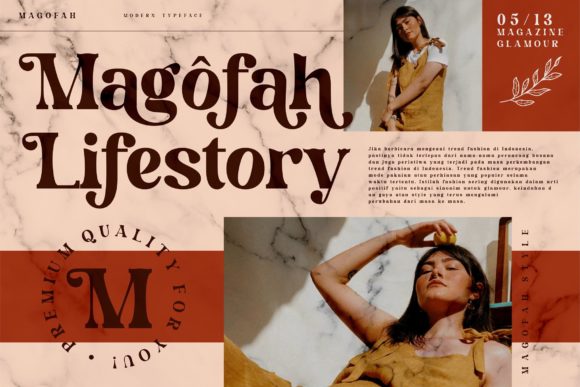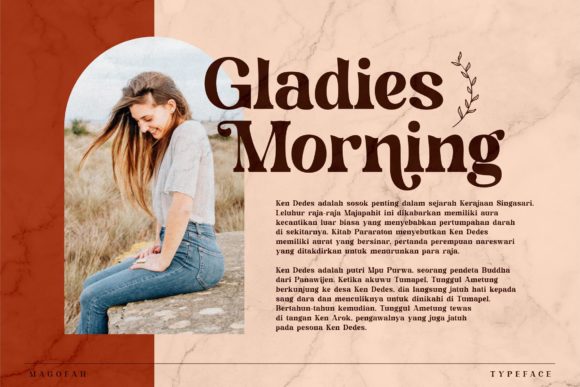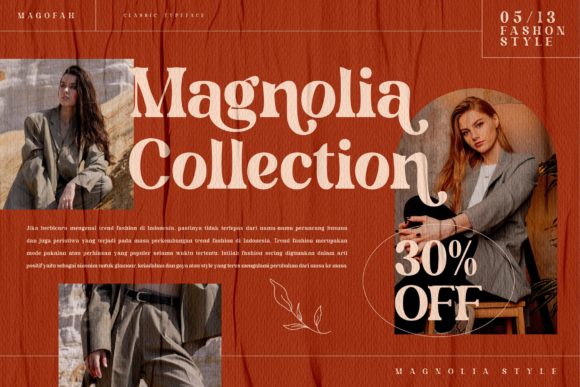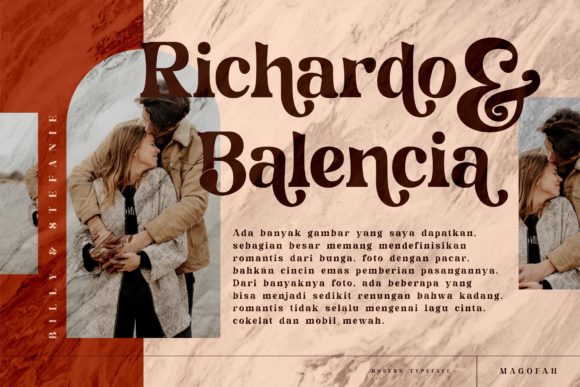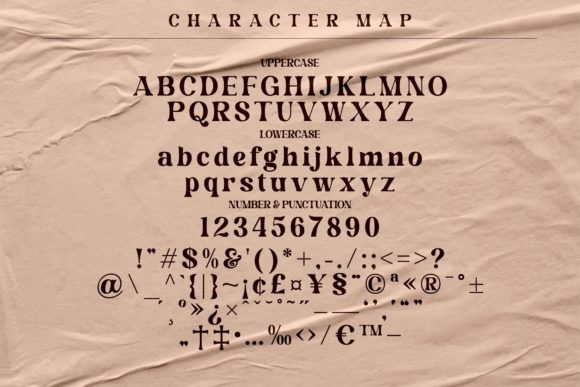
Introduction to Magofah Font
Magofah is a bold, stylish and thick lettered serif font.
This font is PUA encoded which means you can access all of the glyphs and swashes with ease Add it confidently to your favorite creations and let yourself be amazed by the outcome generated.
Key Features of Magofah Font
Why Choose Magofah Font?